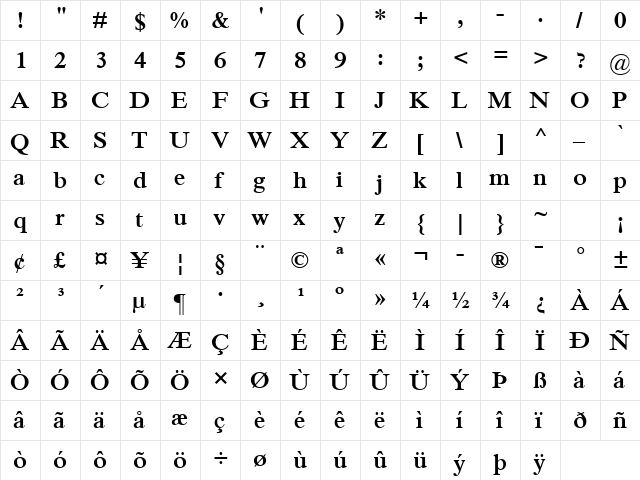
Iskoola Pota Bold Font Preview
Iskoola Pota Bold
Design Context for Iskoola Pota Typeface
Iskoola Pota is a composed and adaptable typeface that performs quietly and consistently across a wide range of design contexts. The heavy weight commands attention and anchors typographic hierarchies.